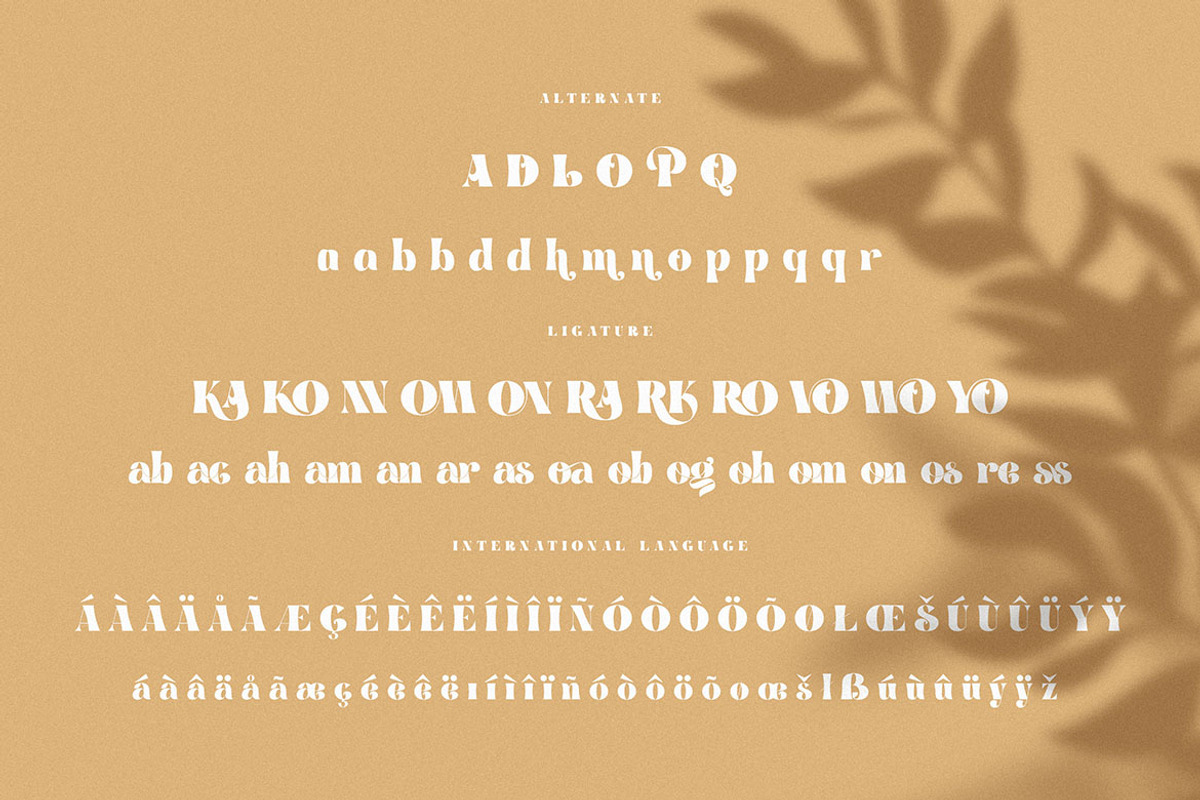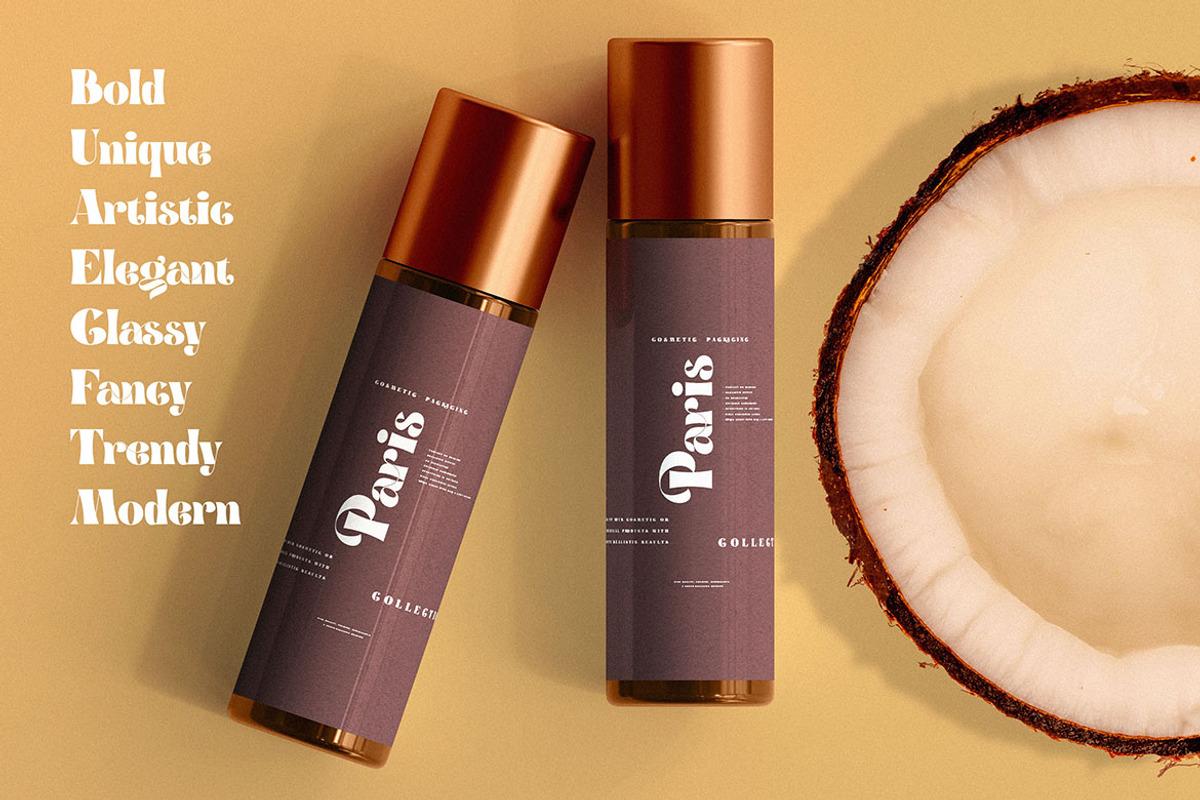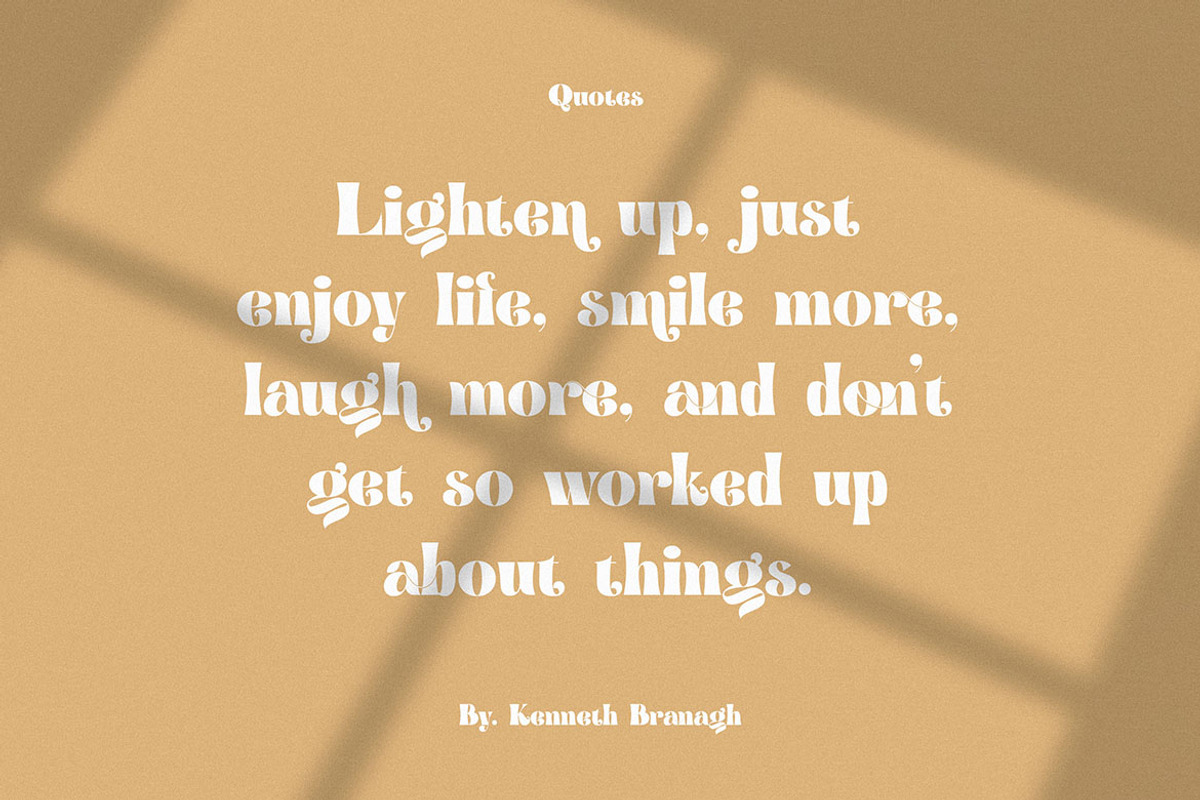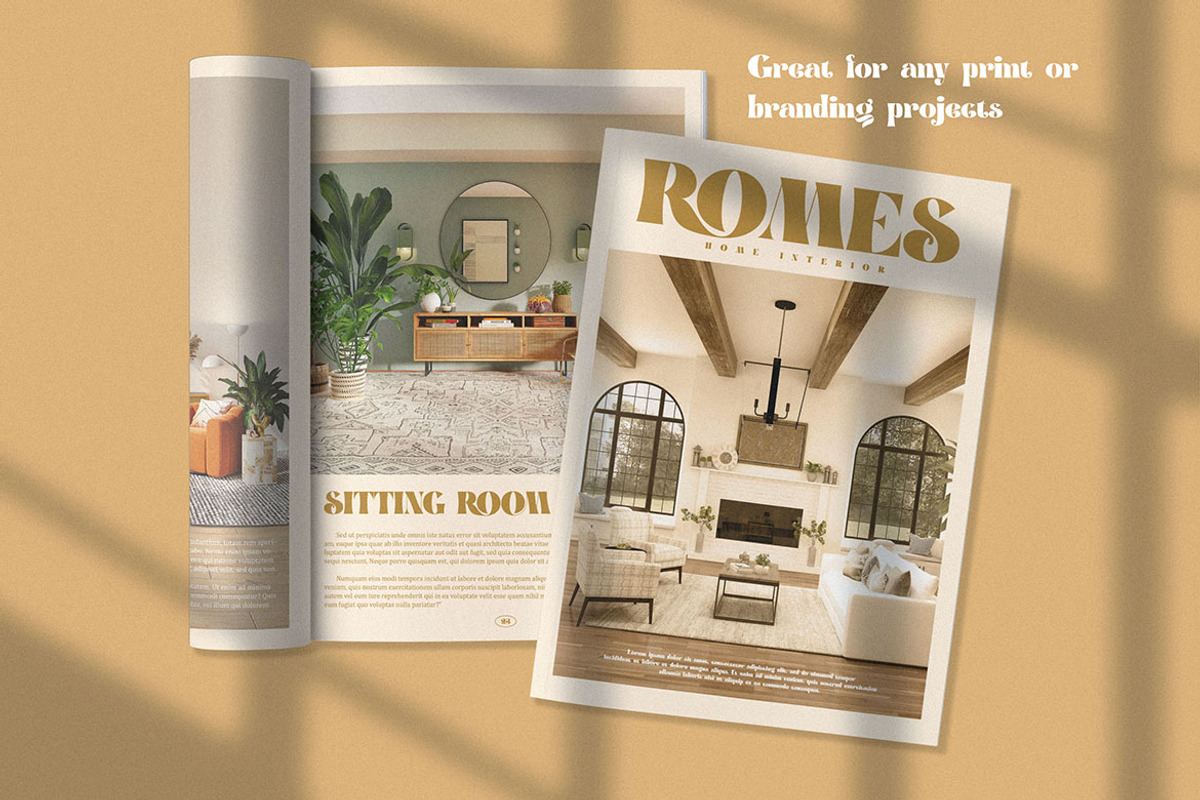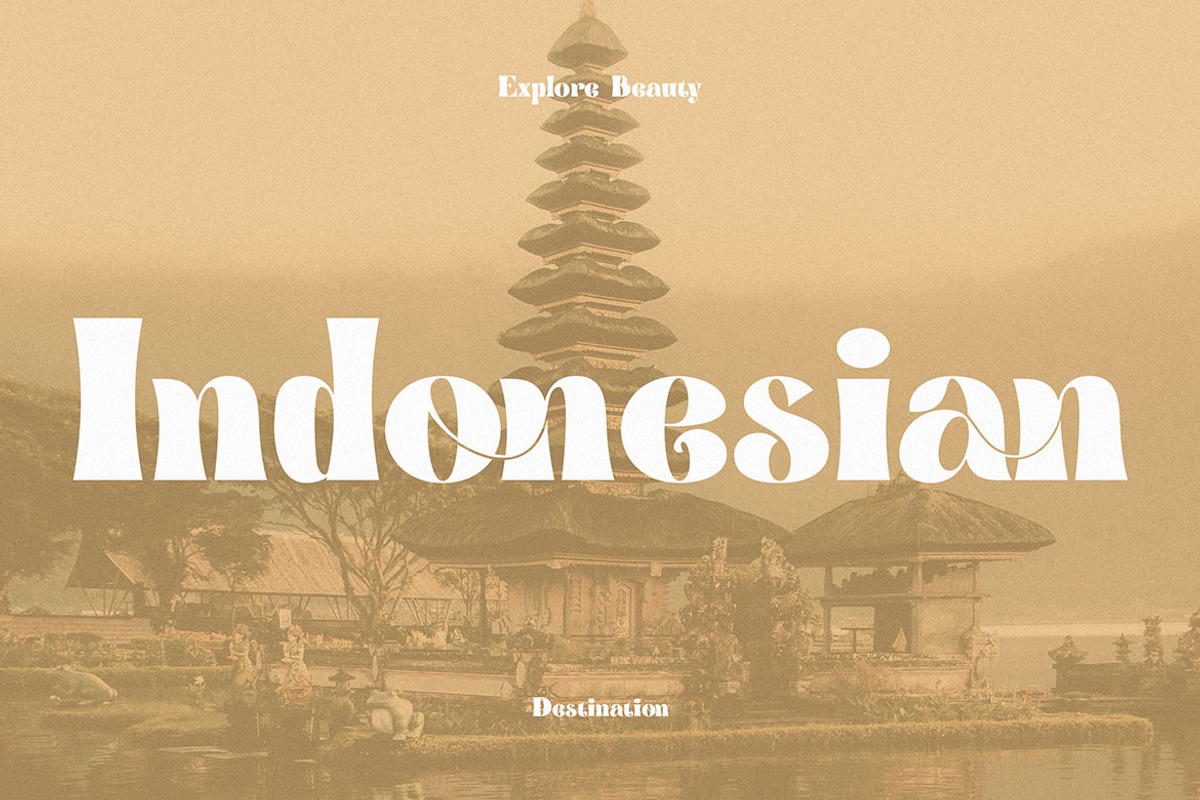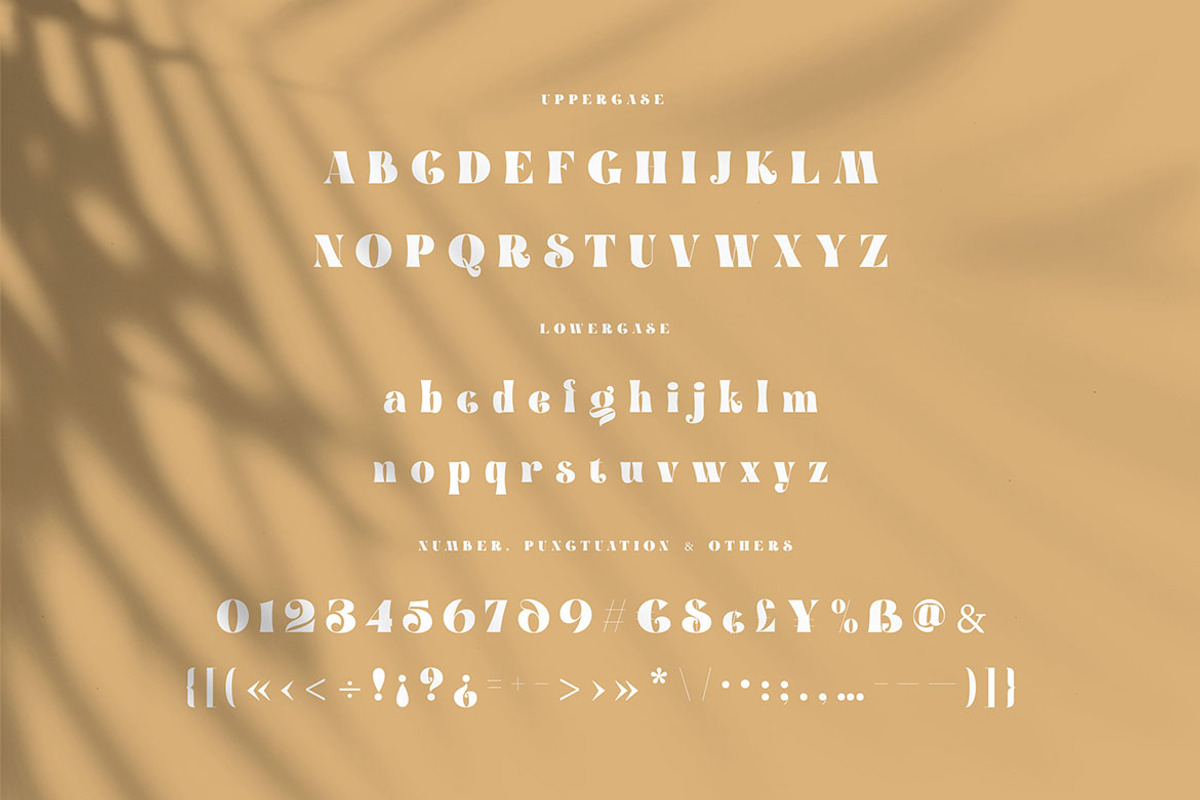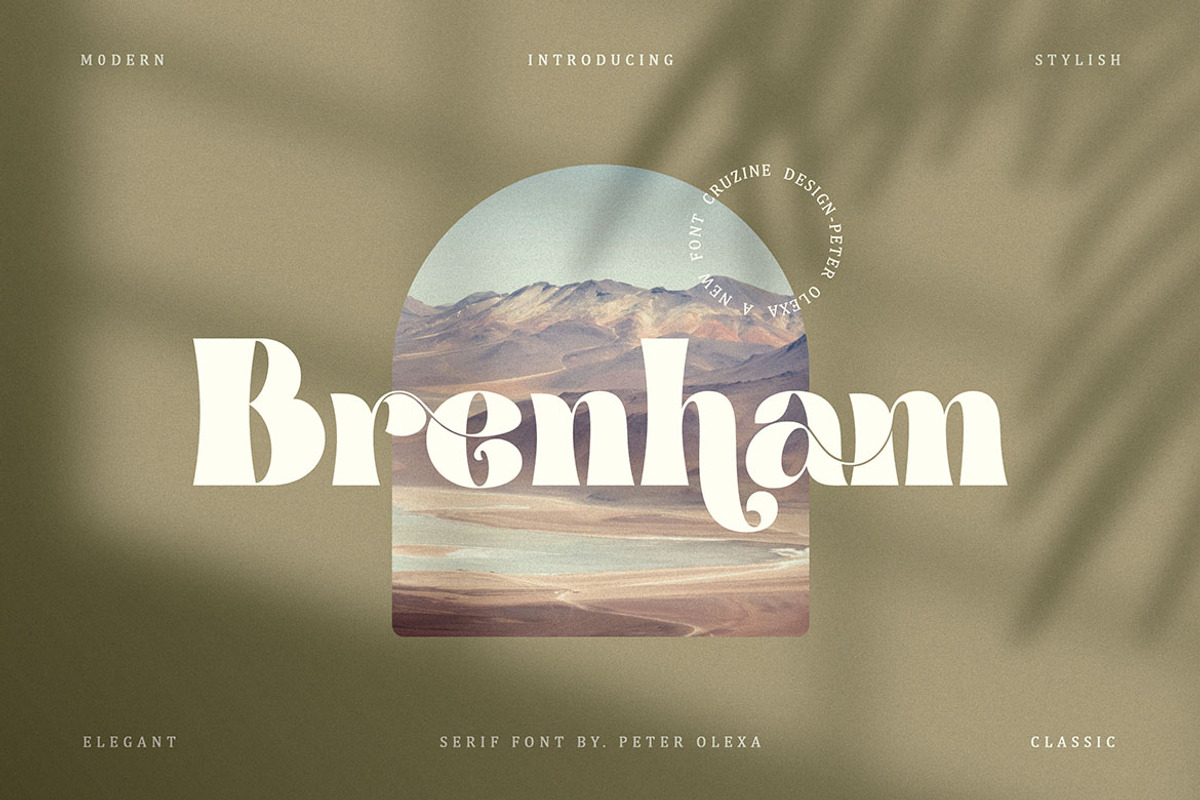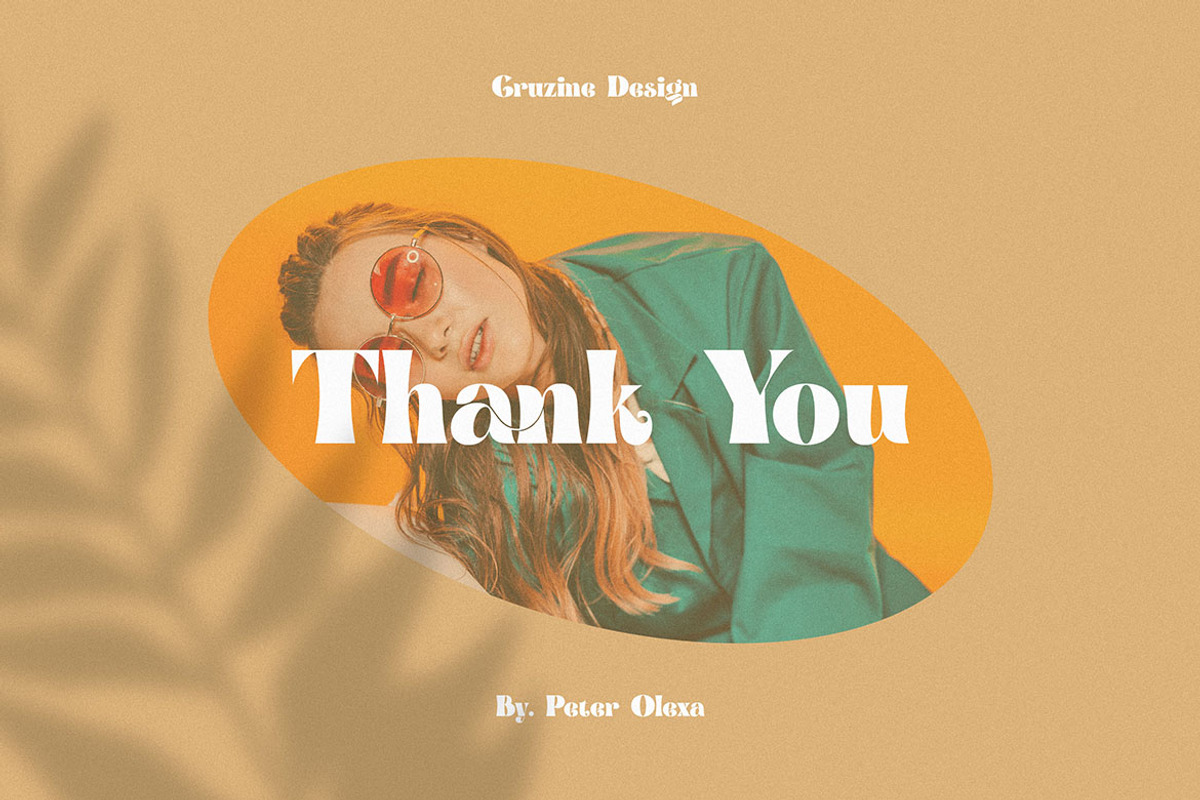
Brenham - Trendy Serif Font
Trendy, bold & modern style serif font for your fancy projects. Elegant, fashion and classic style on Brenham font will be great for any branding project. Lot of alternates and ligatures will help you to create unique and original logo design or website header! Enjoy :)
- Lot of alternate characters
- Lot of ligatures
- Great for modern branding projects!